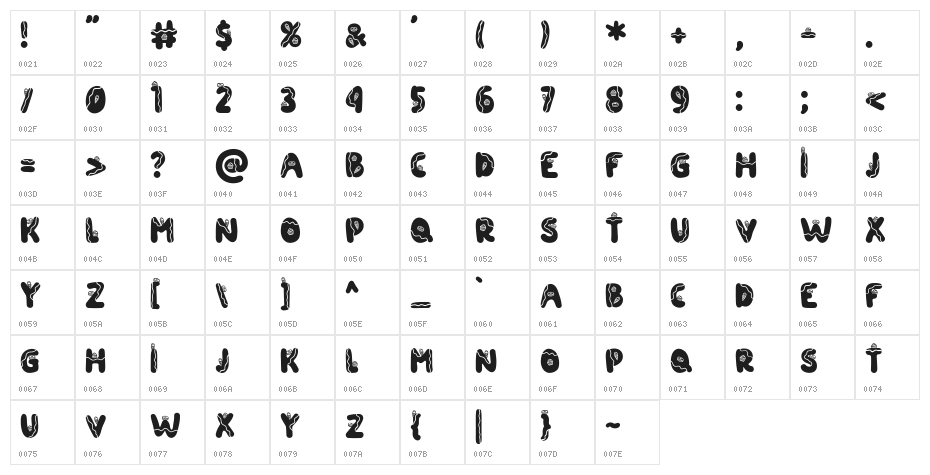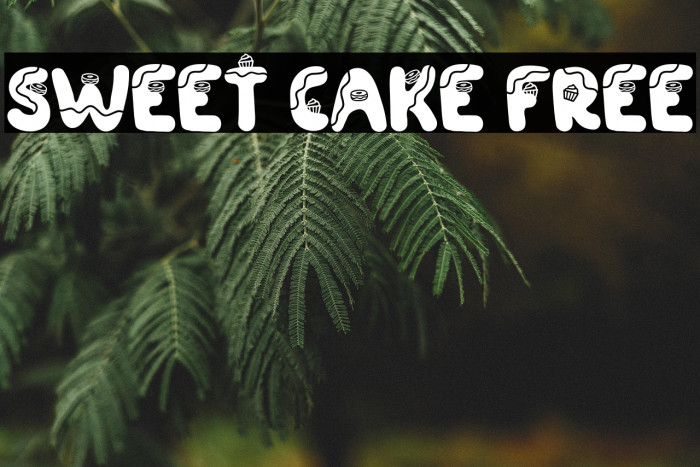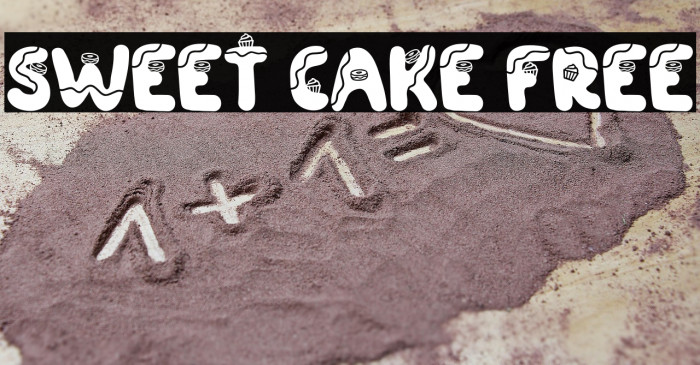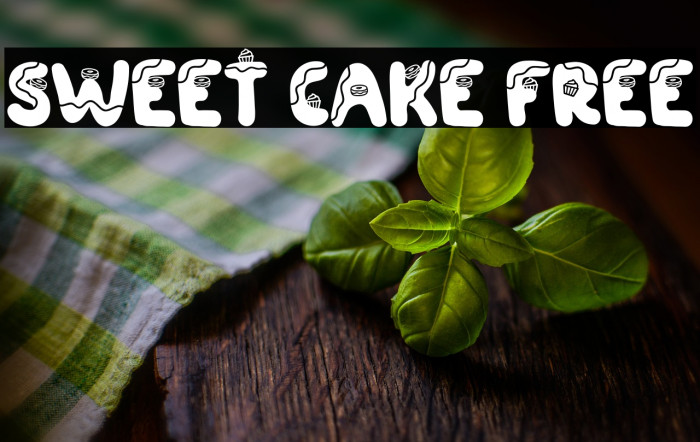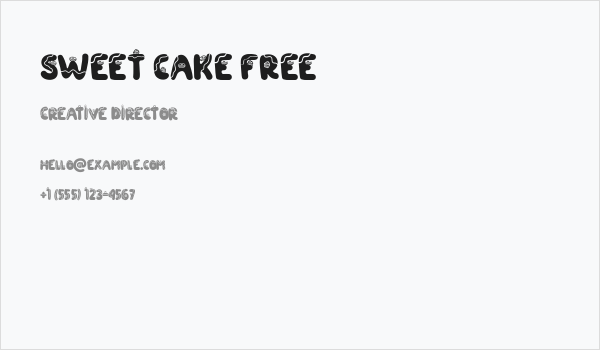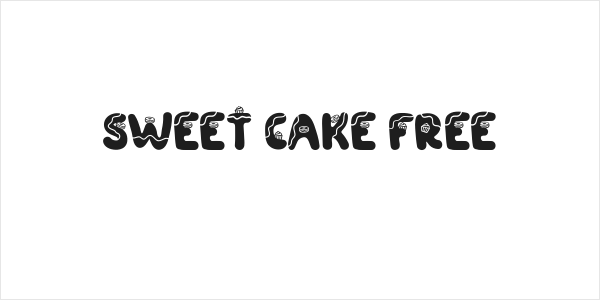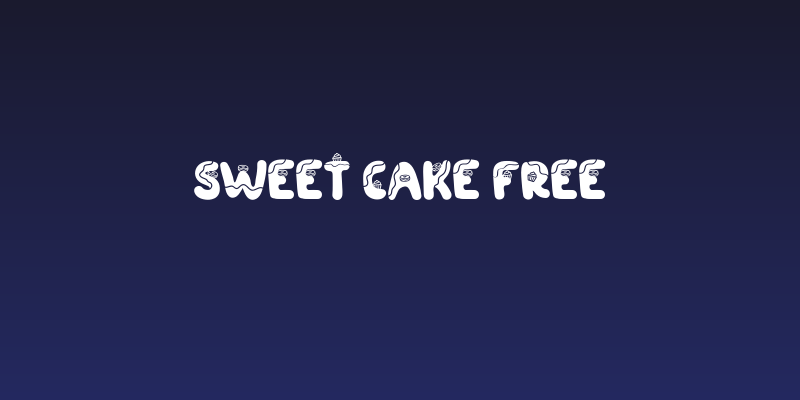
SWEET CAKE FREE Font
SWEET CAKE FREE Description
This playful and whimsical font features bold, rounded characters with a unique twist. Each letter is adorned with delightful cake and dessert motifs, adding a fun and festive touch. The characters are thick and substantial, making them stand out with a strong presence. The decorative elements within the letters create a sense of joy and celebration, perfect for projects that require a lively and cheerful aesthetic. The font maintains a consistent weight throughout, ensuring readability while still offering a creative flair. Its distinct style makes it ideal for eye-catching designs.
| Proposed Projects | Ideal for birthday invitations, bakery branding, children's party decorations, and playful posters. |